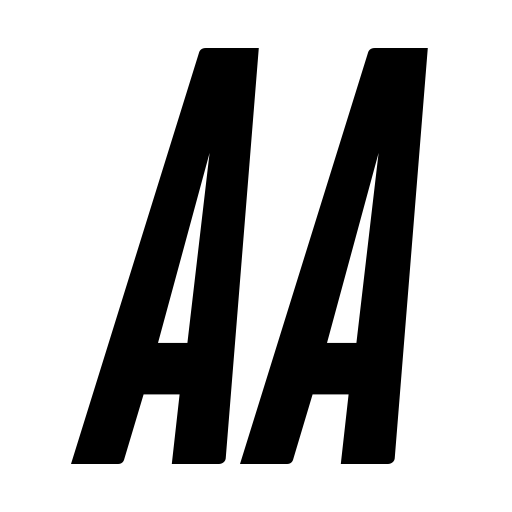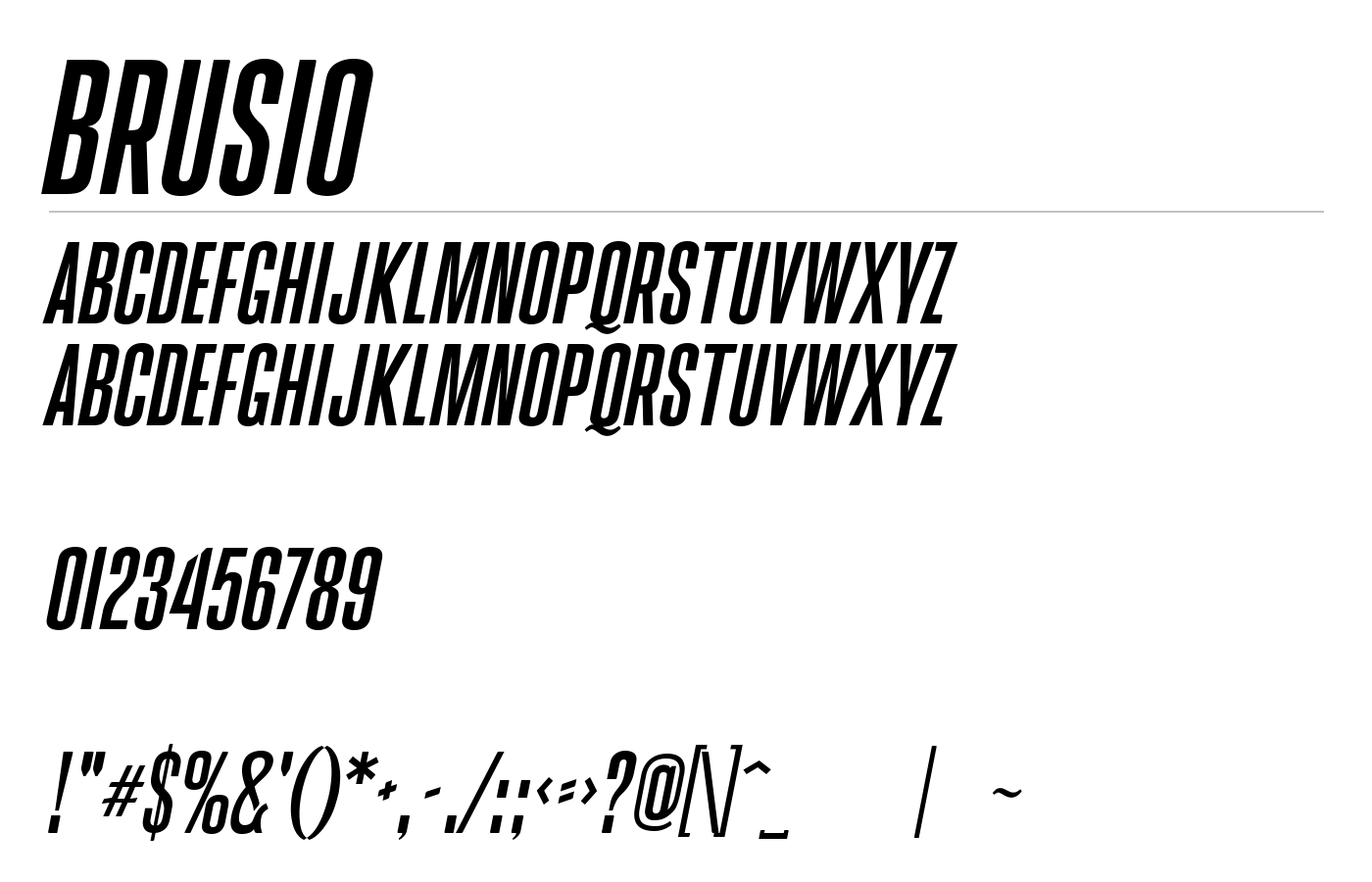
Brusio is a bold, condensed sans serif font with a strong, modern feel characterized by its tall, narrow letterforms and smooth, slightly rounded edges. Its high-contrast strokes and italicized style convey energy and speed, making it ideal for dynamic branding, sports logos, and eye-catching headlines where a sleek, contemporary look is desired.
Brusio Font
About Brusio Font
| Font family | Brusio Font |
| Designer | James Barnardo |